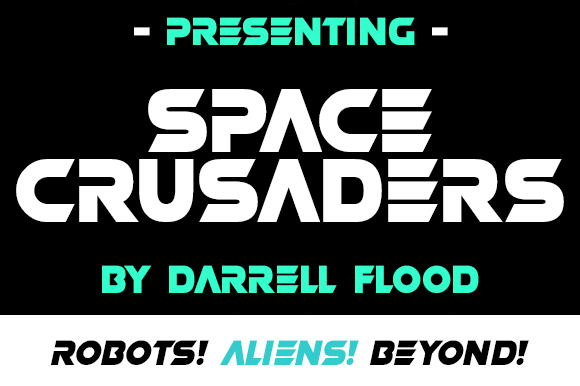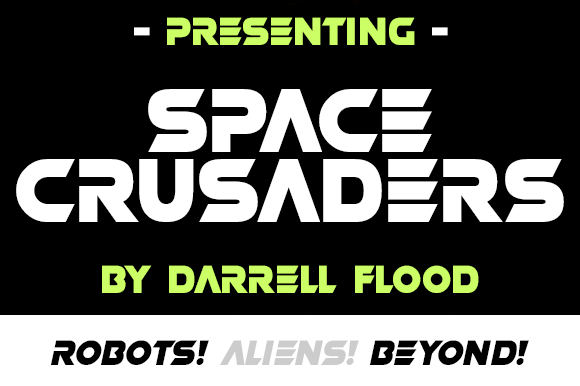
Space Crusaders Font
About the Space Crusaders Font
Explore the possibilities with Space Crusaders Font, a font that offers both beauty and functionality. Space Cursaders is an edgy sci-fi font, that combines diagonal slices with smooth curves, in a slick, modern style. Perfect for alien encounters, high-tech themes, and general sci-fi use!